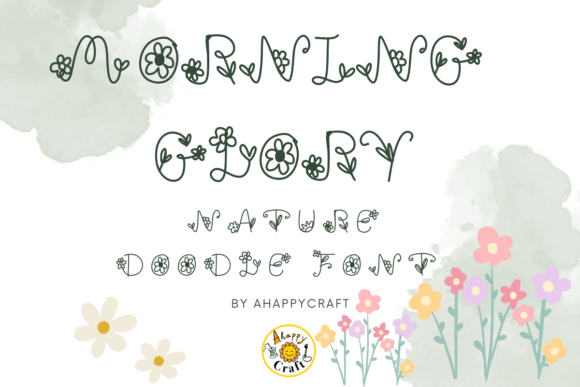
Journey into the realm of creativity with Morning Glory Font, a captivating hand-drawn script font that exudes charm and whimsy. Inspired by the delicate tendrils of morning glory flowers, this font dances across your designs with a free-spirited flair.
Immerse yourself in a world of boundless creativity as you unleash the potential of Morning Glory Font. Its meticulously crafted characters, adorned with playful swirls and elegant flourishes, bring a touch of magic to every project. Whether you're a seasoned designer or just starting your creative journey, Morning Glory Font is your perfect companion.
Step into a realm where imagination knows no bounds. Morning Glory Font opens doors to a world of possibilities, inviting you to create designs that captivate and enchant. Its versatility knows no limits, making it the perfect choice for logos, branding, invitations, social media graphics, and so much more.
With Morning Glory Font, the mundane becomes extraordinary. Transform ordinary text into captivating works of art, leaving a lasting impression on your audience. Its enchanting nature adds a touch of magic to any project, turning the ordinary into the extraordinary.
But Morning Glory Font is more than just a font; it's an experience. Its free-spirited nature invites you to explore the depths of your creativity, encouraging you to push boundaries and create designs that are uniquely yours. Let the font's playful charm inspire you to dream big and bring your visions to life.
Don't settle for ordinary fonts that blend into the background. Embrace the beauty and magic of Morning Glory Font, and let your designs blossom with creativity. Its captivating charm will leave an unforgettable impression, ensuring your message stands out from the crowd.